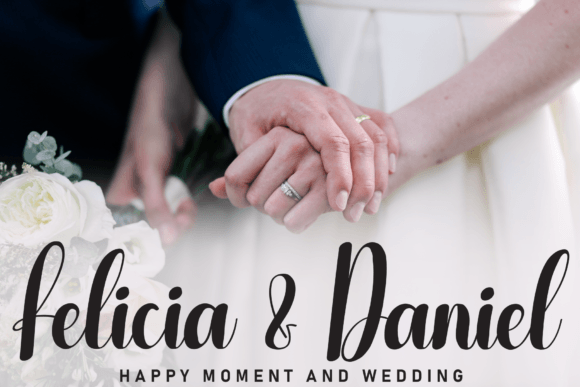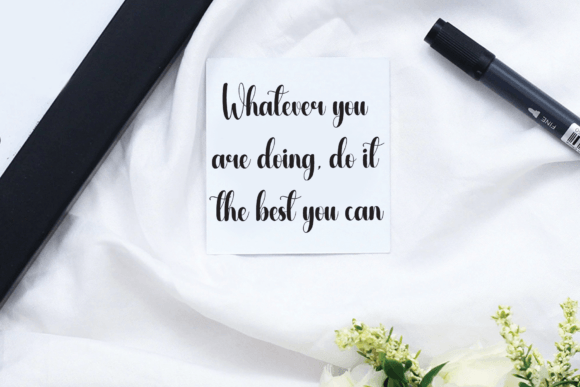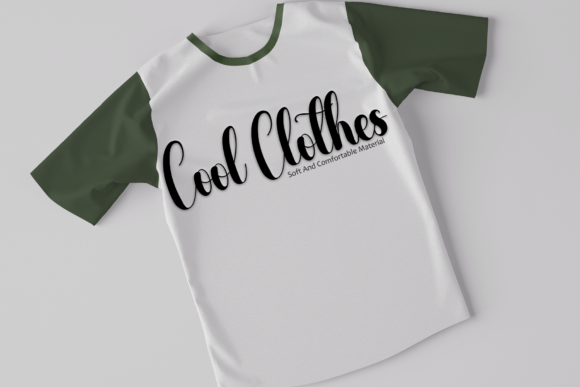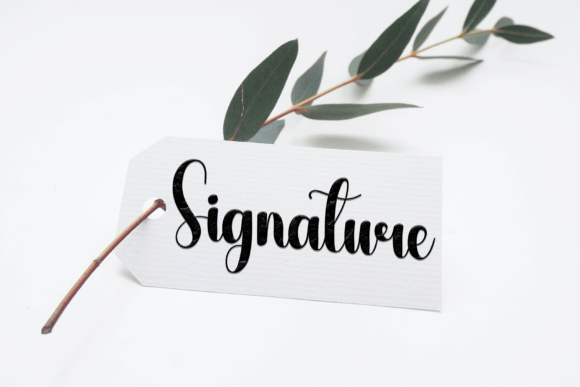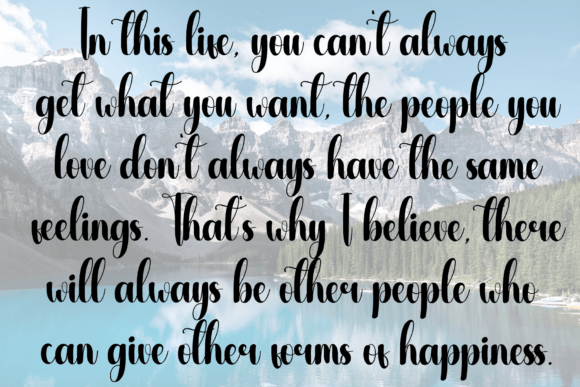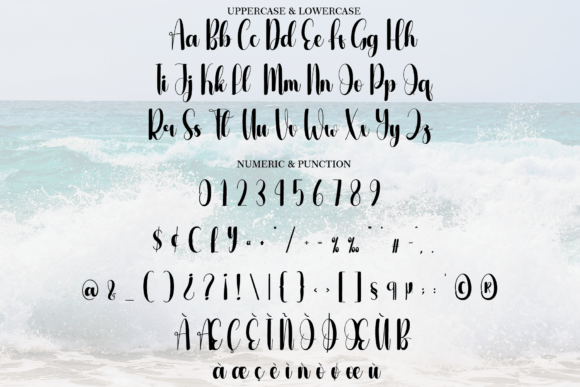
Introducing Beach Waves Font: The Sweet and Friendly Handwritten Font for Your Design Needs
Are you looking for a font that can add a touch of warmth and personality to your designs? Look no further than Beach Waves Font, a sweet and friendly handwritten font that’s perfect for creating beautiful wedding invitations, cards, and other designs that require a lovely touch. In this article, we’ll take a closer look at Beach Waves Font, its features, and how you can use it to elevate your designs.
What is Beach Waves Font?
Beach Waves Font is a fresh and casual handwritten font that’s designed to bring a sense of joy and playfulness to your designs. Its sweet and friendly style makes it ideal for creating designs that require a personal touch, such as wedding invitations, birthday cards, and other celebratory materials. The font’s casual and relaxed vibe also makes it perfect for designs that require a more laid-back feel, such as summer-themed posters, flyers, and social media graphics.
Key Features of Beach Waves Font
So, what makes Beach Waves Font so special? Here are some of its key features:
- Sweet and Friendly Style: Beach Waves Font has a warm and inviting style that’s perfect for creating designs that require a personal touch.
- Fresh and Casual: The font’s casual and relaxed vibe makes it ideal for summer-themed designs, outdoor events, and other applications that require a laid-back feel.
- Handwritten: Beach Waves Font is a handwritten font, which gives it a unique and personal touch that’s hard to replicate with digital fonts.
- Easy to Read: Despite its casual style, Beach Waves Font is easy to read, making it perfect for body text and other applications where legibility is important.
How to Use Beach Waves Font
Beach Waves Font is a versatile font that can be used for a wide range of design applications. Here are some ideas to get you started:
- Wedding Invitations: Beach Waves Font is perfect for creating beautiful wedding invitations that set the tone for a romantic and memorable day.
- Birthday Cards: The font’s sweet and friendly style makes it ideal for creating birthday cards that are both personal and celebratory.
- Summer-Themed Posters: Beach Waves Font’s casual and relaxed vibe makes it perfect for creating summer-themed posters, flyers, and social media graphics.
- DIY Crafts: Beach Waves Font is also perfect for DIY crafters who want to add a personal touch to their projects, such as scrapbooking, journaling, and card-making.
Tips for Using Beach Waves Font
Here are some tips for using Beach Waves Font effectively in your designs:
- Pair it with Other Fonts: Beach Waves Font pairs well with other fonts, such as sans-serif fonts, to create a visually appealing contrast.
- Use it for Headings and Body Text: Beach Waves Font is easy to read, making it perfect for both headings and body text.
- Experiment with Colors: Beach Waves Font looks great in a variety of colors, from bright and bold to soft and pastel.
- Add Decorations: Consider adding decorations, such as flowers or other graphics, to enhance the font’s playful and whimsical style.
Beach Waves Font is a sweet and friendly handwritten font that’s perfect for designers and crafters who want to add a personal touch to their designs. Its fresh and casual style makes it ideal for a wide range of applications, from wedding invitations to summer-themed posters. With its ease of use and versatility, Beach Waves Font is a great addition to any designer’s toolkit.